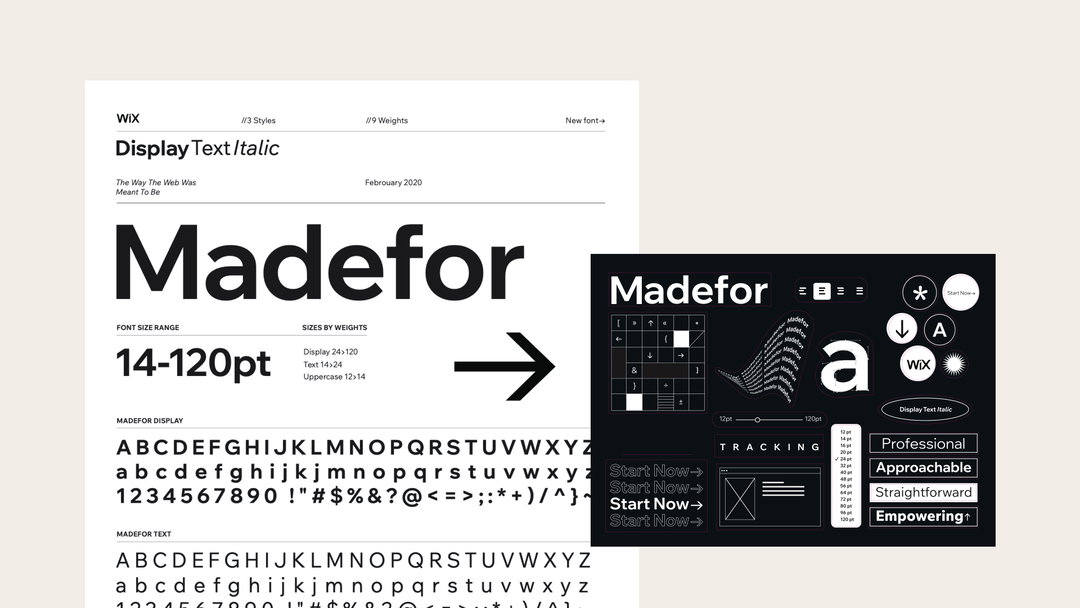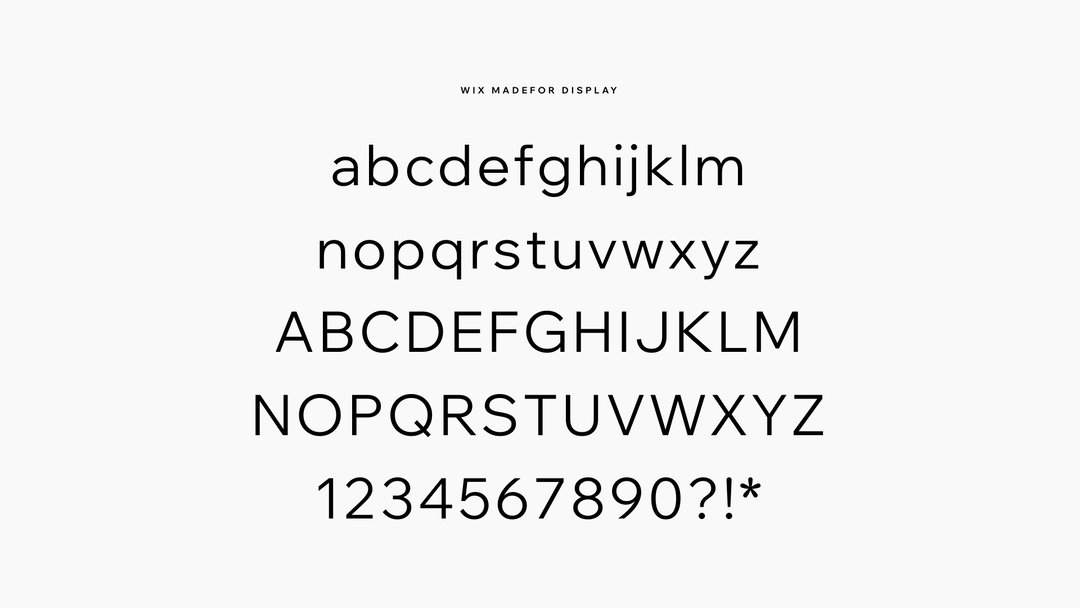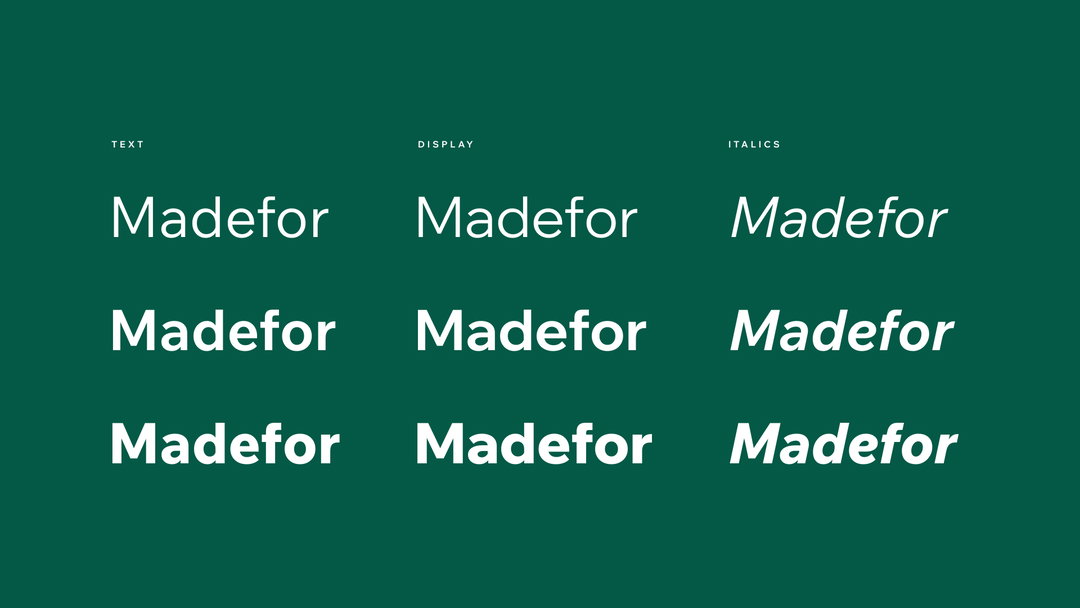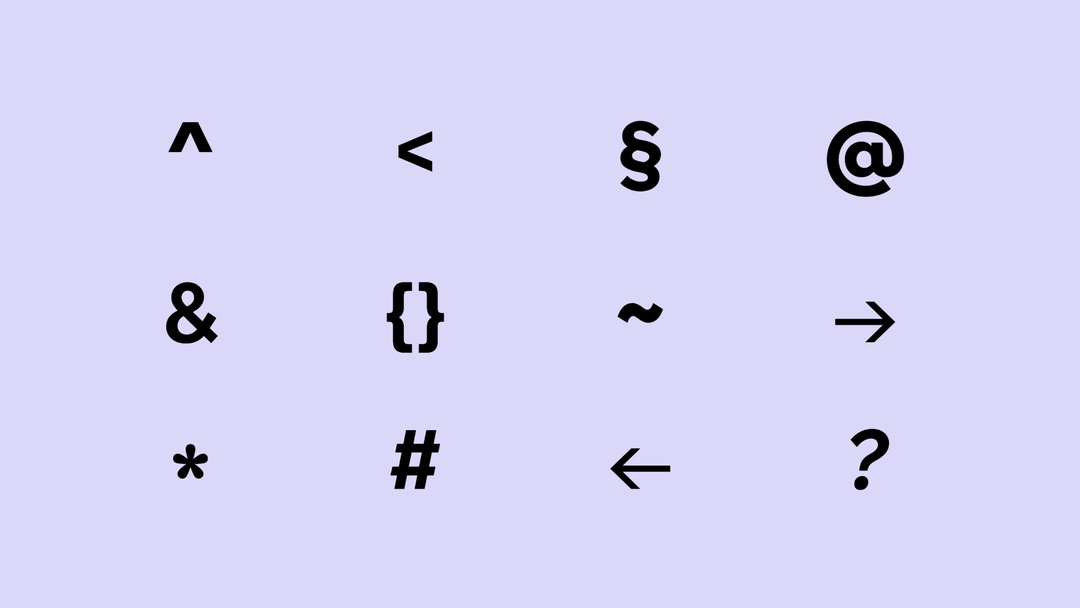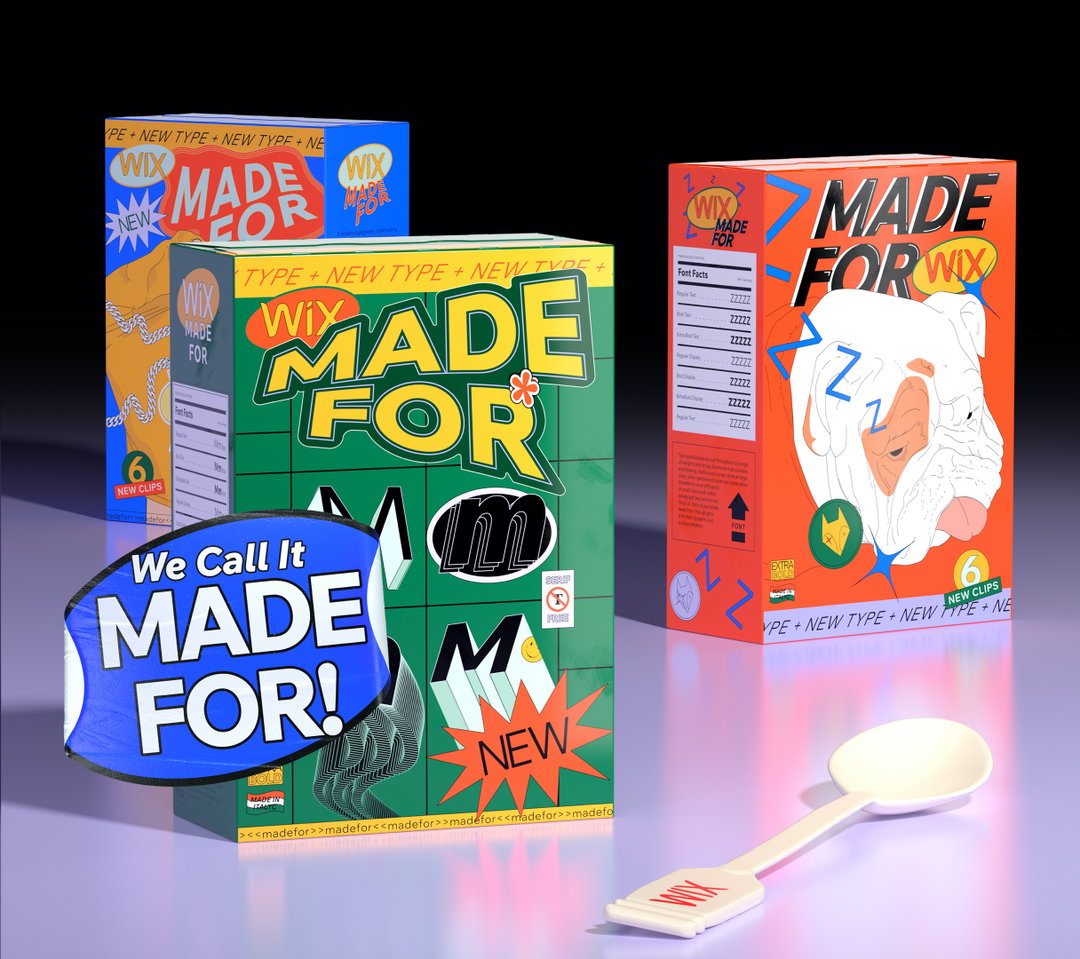
Wix unveils custom, digital-first typeface designed with Dalton Maag for users to deploy on their websites
Madefor is created for web and versatile at nine weights, with a subtle character shown in the slight flare of some letterforms and its wide geometric proportions.
Dalton Maag has worked with website-building platform Wix to develop a custom typeface for its suite of design elements, which users will be able to deploy in their site designs. Having found that users were often limited by fonts that were “beautiful but not made for the web,” the brief was to create something digital-first and versatile to its broad customer base, while still characterful and distinct. The result is Madefor – so called because it was “made for” its customers – which comes in nine weights, and features wide geometric proportions, smooth curves and a subtle flare on some of the terminals.
“We take a lot of pride in our in-house multidisciplinary design studio, and we noticed the brand was missing a critical element of design, a custom and easily recognisable typeface,” says Wix’s VP of design and brand Hagit Kaufman in a statement. Key to the brief was creating something that worked well online and maintained its personality when scaled across large displays, as well as supporting legibility in all sorts of interfaces and in long-form text. Dalton Maag and Wix’s in-house team developed five design routes, along the way clarifying the typographic proportions and features that best conveyed the brand’s tone, voice and core values.
Madefor is a fairly minimalist grotesk with wide-set letterforms that aim to give impact to the display fonts. Meanwhile there is understated character added through details such as the flared and angled cut on the ends of the ’s’, the pipe-bend short terminals of the lowercase ‘j’ and ‘t’, and the asymmetrical counters in the ‘b’, ‘d’ and others. The text styles are narrower and looser for efficiency at small sizes.
Matt Burvill, font developer at Dalton Maag, says the collaboration resulted in a “compact typographic toolkit with a subtle, but unique personality,” while the diversity of the team from a mixture of departments, backgrounds, cultures, and genders “allowed for balanced feedback and a typeface that truly feels like it was made for all”.
Madefor includes three display weights and three text weights, with each style in regular, bold and extra bold, and each weight available in a matching italic. It will be released to users in the near future.